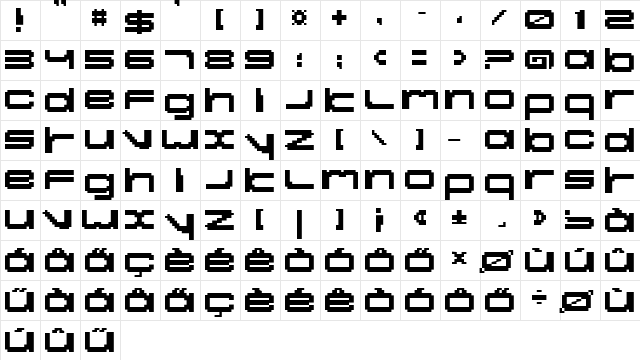
spotdot Regular
Design Context for spotdot Typeface
spotdot is rooted in pixel-grid construction, making it a natural fit for game UI, retro computing aesthetics, and digital nostalgia projects.
A natural choice for retro game titles, chiptune music branding, 8-bit UI, and digital nostalgia projects.
Pro Tip: Pair spotdot with flat colour palettes and simple geometric UI elements to reinforce its digital aesthetic.